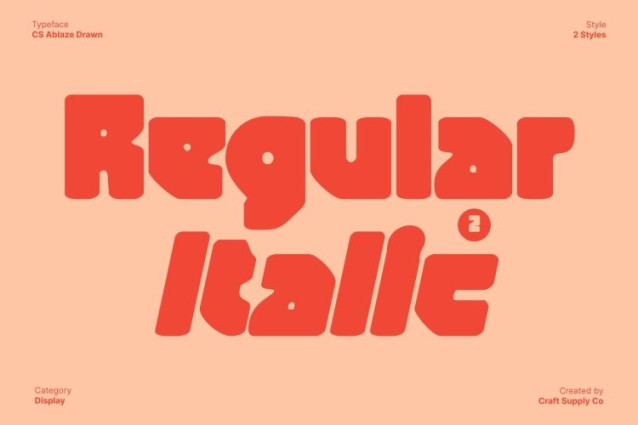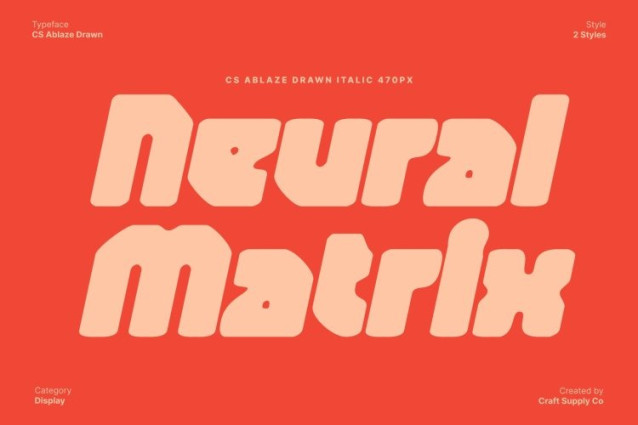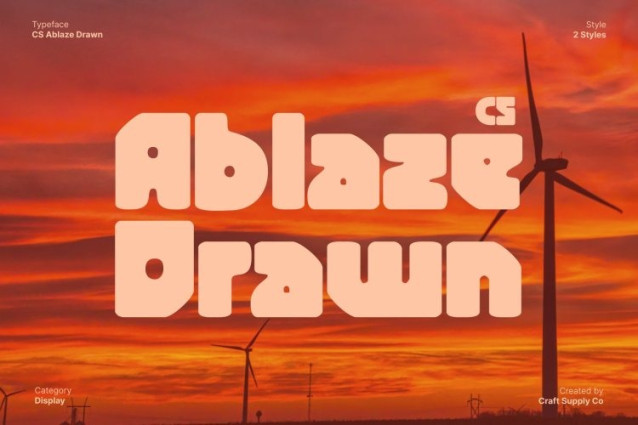
CS Ablaze Drawn Font This is a bold display sans-serif font built from blocky, brutalist shapes and a strong geometric foundation. Its heavy structure and solid construction create an uncompromising visual presence, while the hand-drawn texture adds raw character and expressive depth. Each letter feels architectural and forceful, delivering a powerful identity inspired by industrial design and experimental typography.
Industrial, Raw, and Experimental Character
Rooted in industrial aesthetics, this font embraces rigidity, sharp edges, and bold proportions. The drawn effect introduces subtle imperfections that enhance its rebellious and handcrafted feel, giving the font a modern, fearless attitude. This balance between mechanical structure and organic texture makes it feel both aggressive and visually engaging.
Built for High-Impact Display Design
This font excels in large-scale display applications where impact is essential. Its bold weight and geometric clarity ensure strong readability, while the rough, drawn details amplify visual intensity. Headlines, titles, and key messages appear loud, confident, and commanding.
Perfect for Posters, Music, and Bold Branding
Ideal for posters, album artwork, band merchandise, signage, and bold branding, this font delivers a lasting impression. Its brutalist style and industrial energy make designs feel powerful, expressive, and unforgettable perfect for projects that demand attention and refuse to blend in.